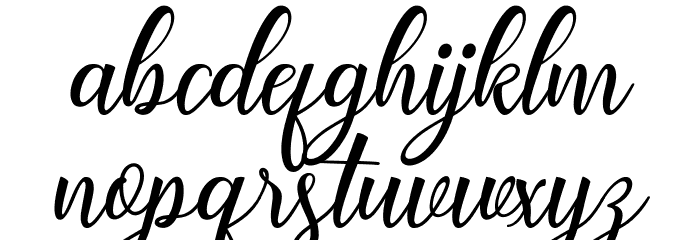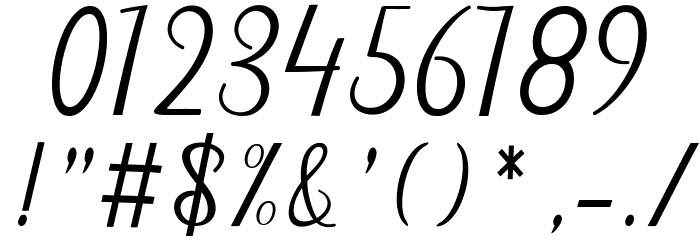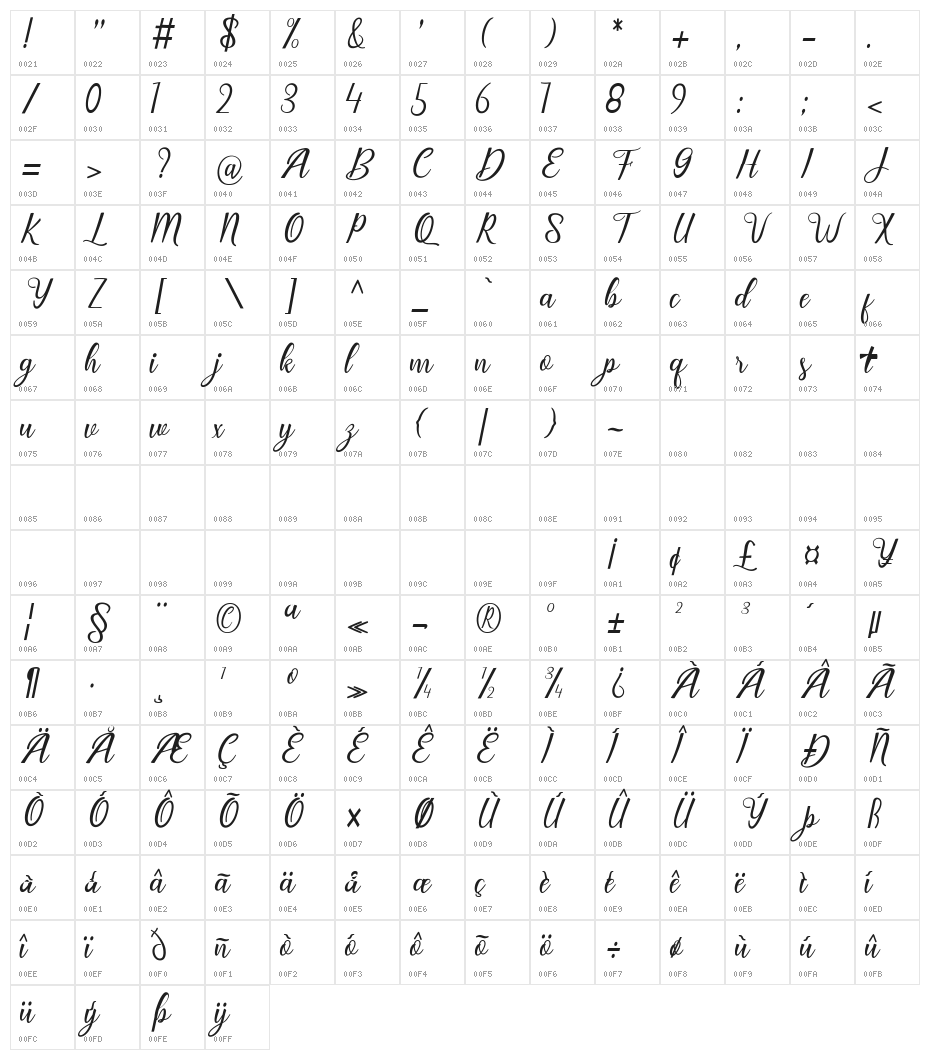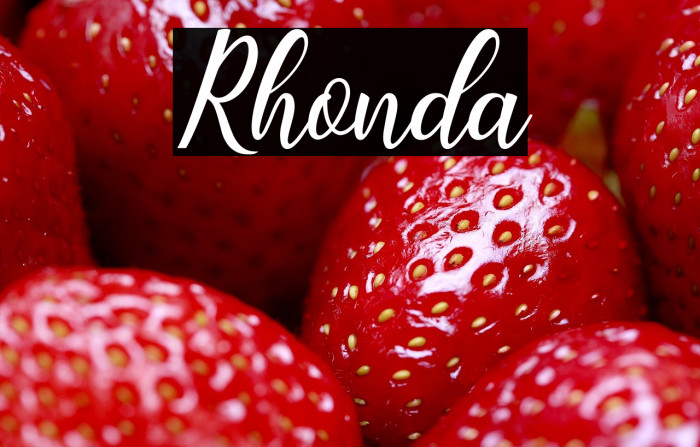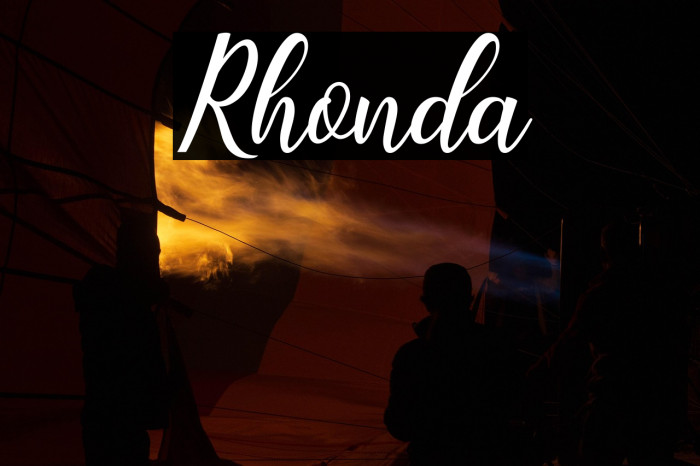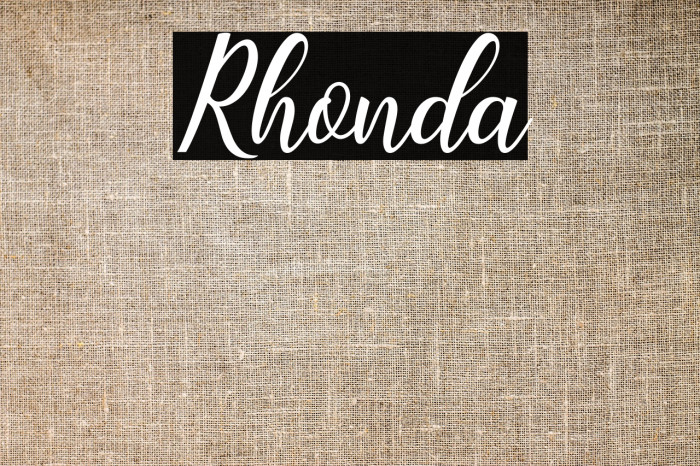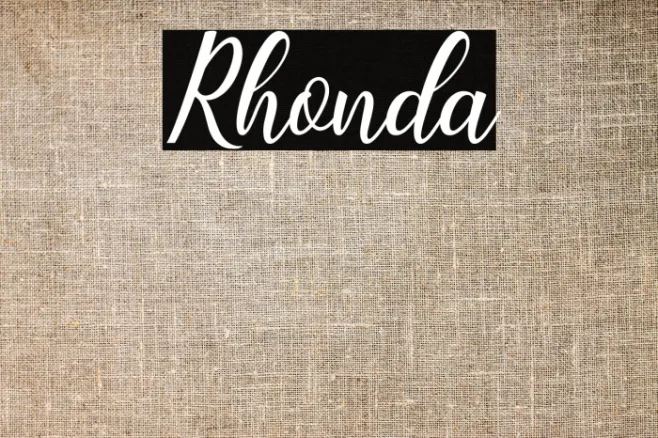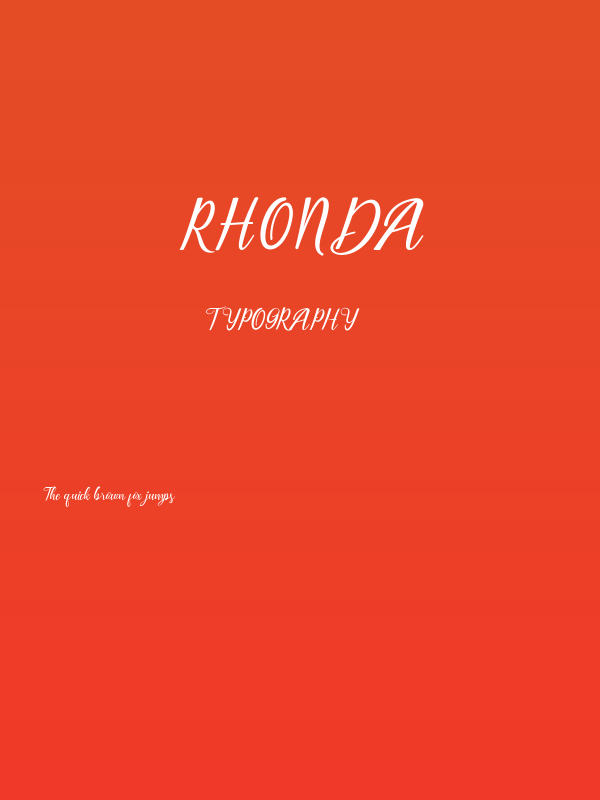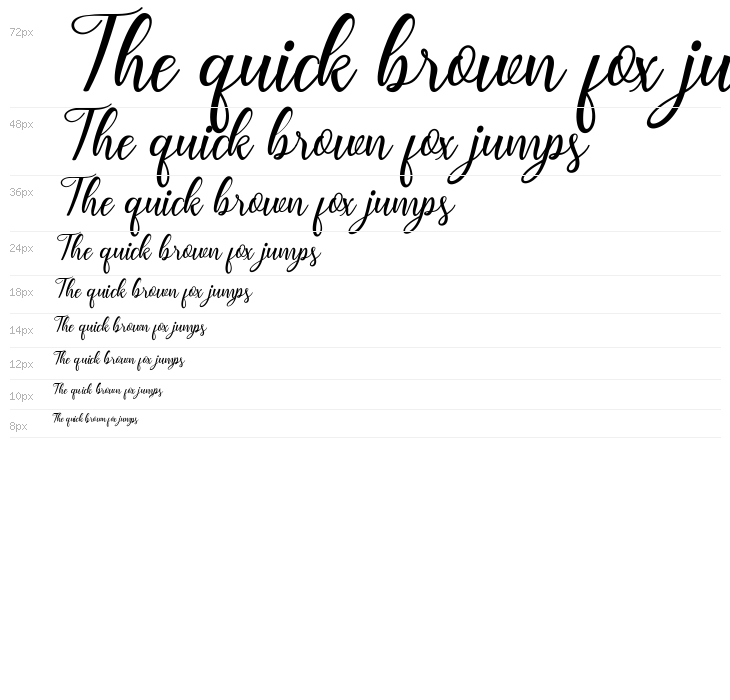
Rhonda Font
This elegant script font features a flowing, cursive style that exudes sophistication and grace. The uppercase letters are tall and slightly slanted, with smooth, sweeping curves that give a sense of fluidity and movement. The lowercase letters are more compact, maintaining the same graceful curves and loops, creating a harmonious balance between the two cases. The numerals are sleek and slightly elongated, complementing the overall aesthetic. Special characters are designed with the same attention to detail, ensuring consistency throughout the font. This font is perfect for projects that require a touch of elegance and refinement.
A sophisticated script font with flowing, elegant curves.
- Font: Rhonda
- Proposed Projects: Ideal for wedding invitations, elegant branding, luxury product packaging, and personal stationery.
- Category: Script
- Overall Style: Elegant, Sophisticated
- Use Case: Logos, Invitations, Branding